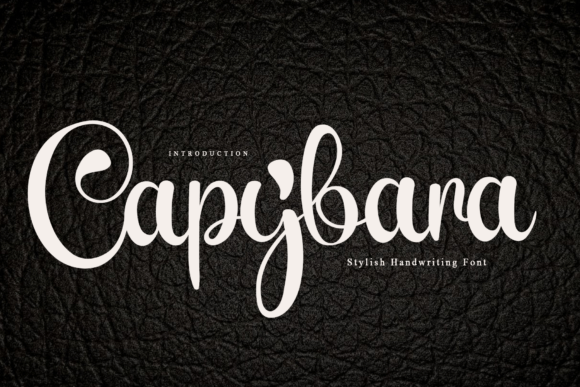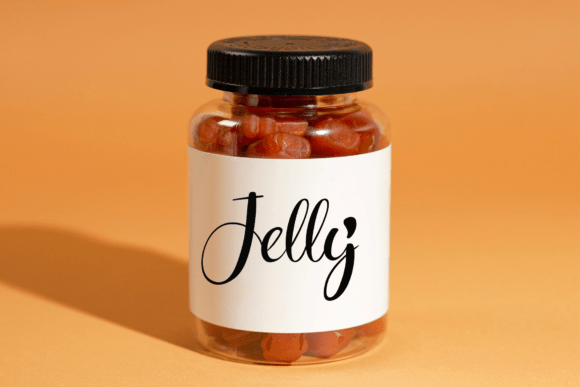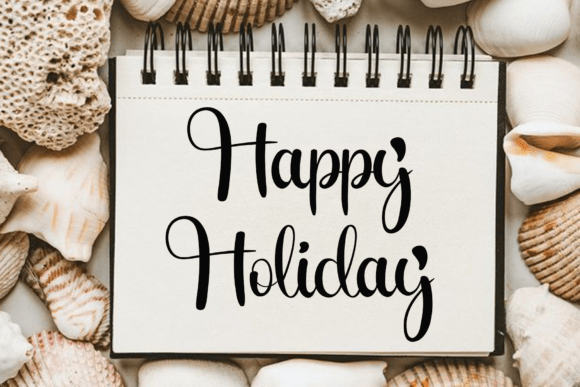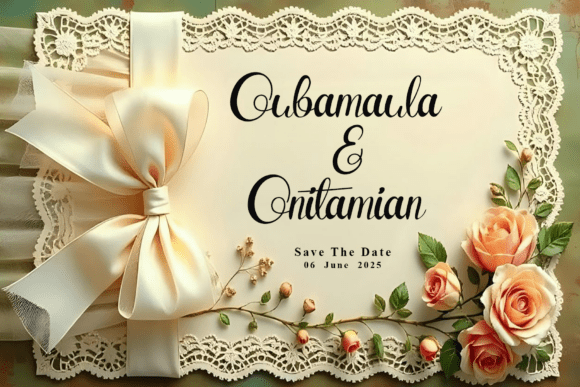
Capybara Font: Elegant Calligraphy Font for Wedding & Logo Design
About the Capybara Font
Discover the charm of Capybara Font. This font is a perfect blend of modern aesthetics and classic appeal. Capybara is a beautiful handwritten font with a natural, flowing style. It looks like elegant cursive writing, perfect for adding a personal and stylish touch to invitations, logos, and social media posts.
Capybara Font Usage Examples
Capybara Font Example